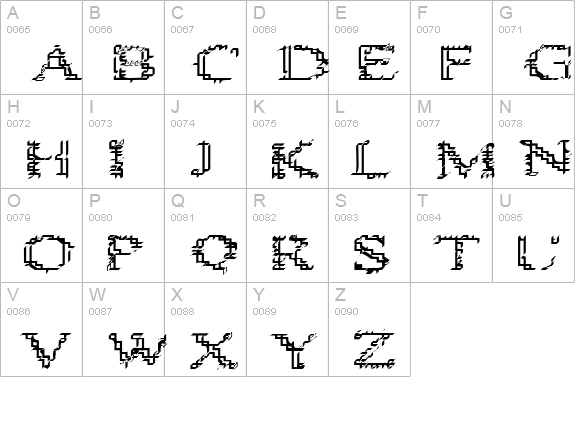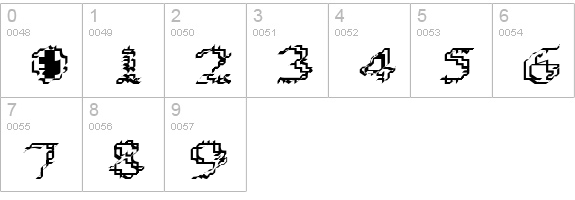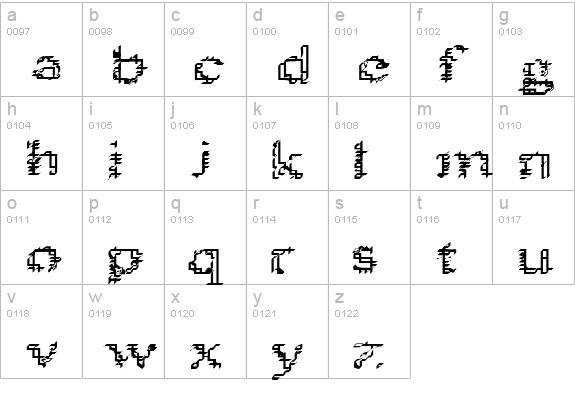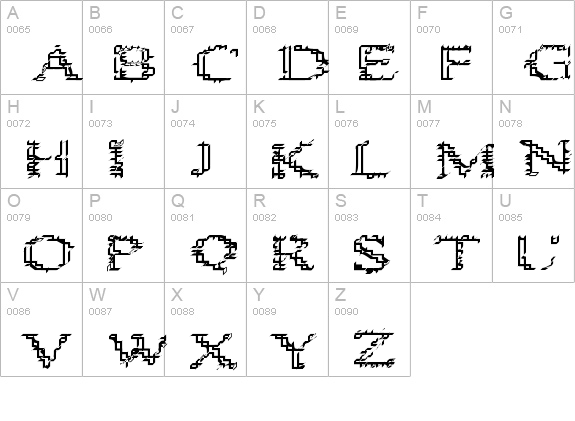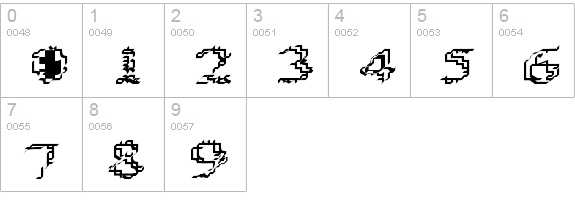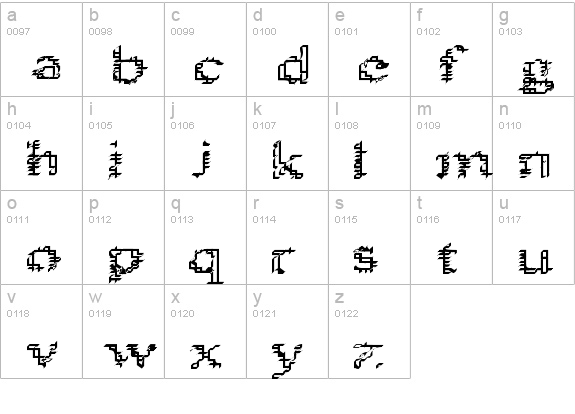
Heat Sinks 386 font is a modern and stylish typeface that is perfect for adding a touch of sophistication to any design project. With its sleek and angular letterforms, this font is sure to catch the eye and make a lasting impression. Designed with versatility in mind, Heat Sinks 386 font can be used for a variety of purposes including logos, branding, headlines, posters, and more. Its bold and strong appearance lends itself well to both digital and print designs, making it a valuable asset for any designer or creative professional. One of the standout features of Heat Sinks 386 font is its unique heat sink-inspired design elements. These intricate details add depth and visual interest, elevating your designs to new heights. Whether you're working on a tech-related project or simply want to add a touch of industrial flair, this font is the perfect choice. What sets Heat Sinks 386 font apart from other fonts is that it is freely available to download at FontsMarket.com. This means that you can easily access and use this font in your projects without any restrictions. The free availability of Heat Sinks 386 font allows designers of all levels to experiment and explore new creative possibilities without breaking the bank. So, if you're looking for a font that combines modern aesthetics with unique design elements, look no further than Heat Sinks 386 font. Download it for free at FontsMarket.com and unleash your creativity today.